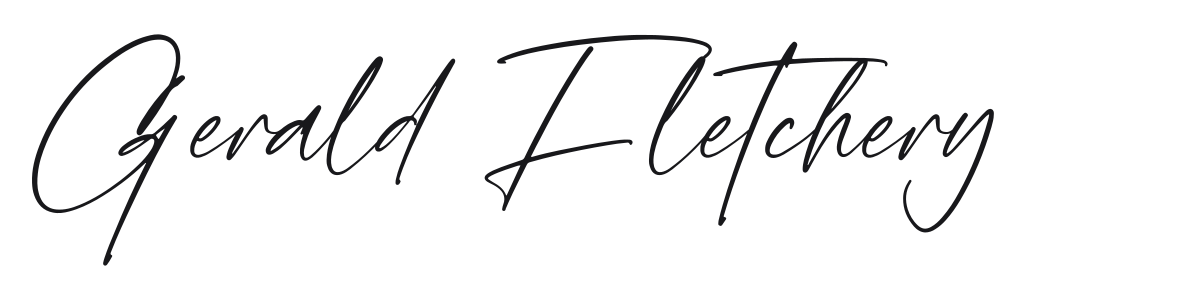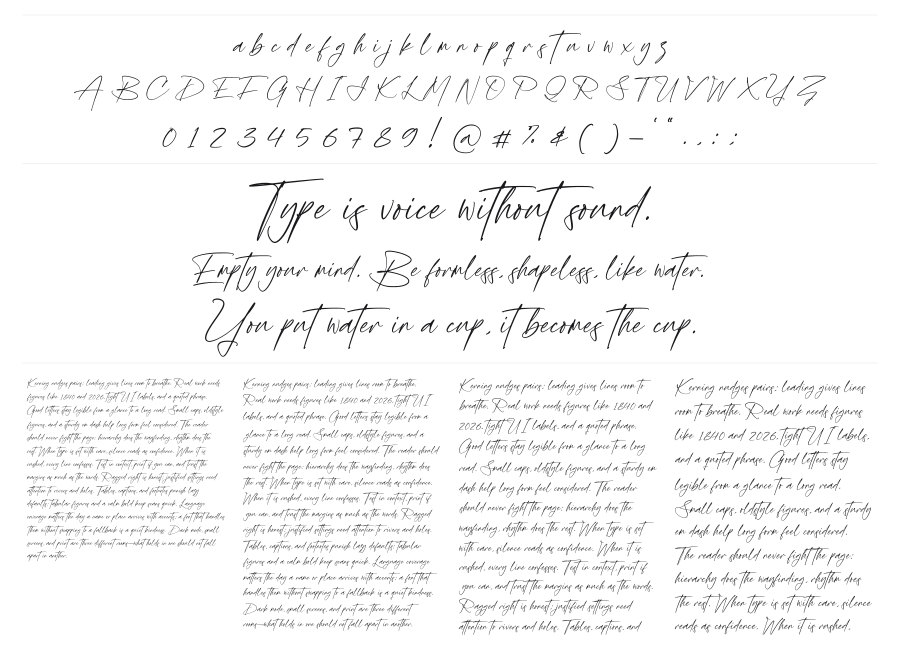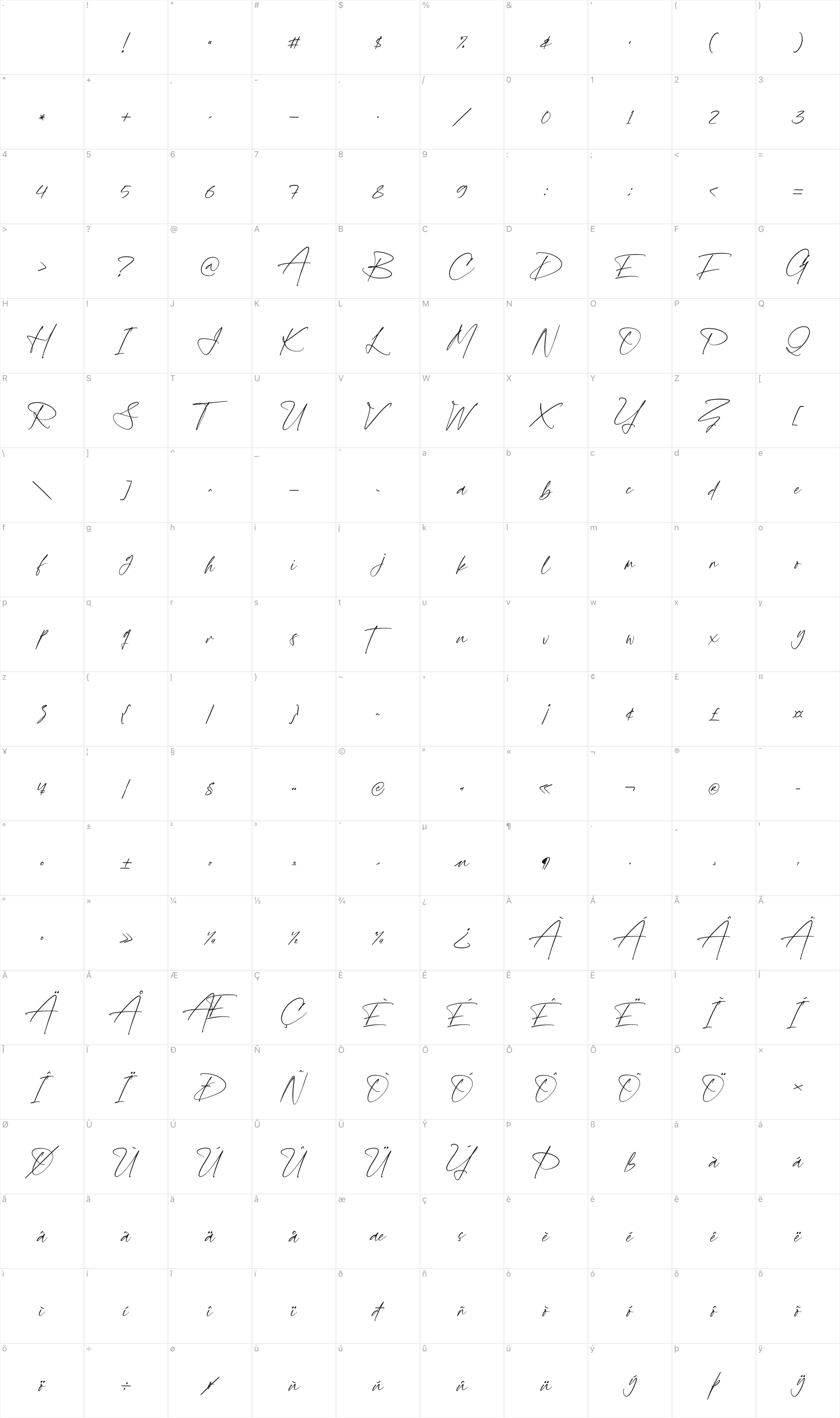
Gerald Fletchery
Gerald Fletchery is a casual handwritten script with a loose, signature-like quality and freely looping ascenders and descenders. The strokes feel genuinely pen-drawn, with a relaxed slant and organic variation that avoids the stiffness of formal calligraphy. It works best at large sizes for logos, invitations, and packaging where that personal, handmade character can breathe.